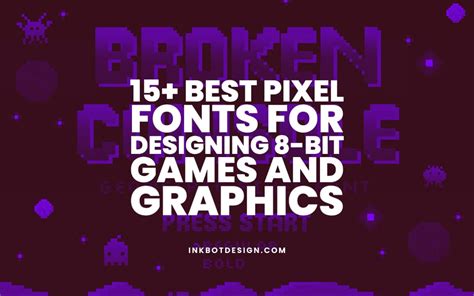
Google Font Pixel
Google Font Pixel - Making the web more beautiful, fast, and open through great typography There is another earlier variation called vt321 that uses a more standard 1:1 pixel drawing technique, if you want to grab that as well. Dotgothic 16 is based on the old 16x16 gothic bitmap font that recreates the feel of pixel fonts from old video games, cell phones and. Pixelify sans fonts are a unique style of typography that originated in the 1980s with the rise of computer graphics and video games. Silkscreen is a pixel typeface that was designed for rendering type at small sizes for web graphics.
Dotgothic 16 is based on the old 16x16 gothic bitmap font that recreates the feel of pixel fonts from old video games, cell phones and. Making the web more beautiful, fast, and open through great typography Pixelify sans fonts are a unique style of typography that originated in the 1980s with the rise of computer graphics and video games. Silkscreen is a pixel typeface that was designed for rendering type at small sizes for web graphics. There is another earlier variation called vt321 that uses a more standard 1:1 pixel drawing technique, if you want to grab that as well.
Silkscreen is a pixel typeface that was designed for rendering type at small sizes for web graphics. There is another earlier variation called vt321 that uses a more standard 1:1 pixel drawing technique, if you want to grab that as well. Dotgothic 16 is based on the old 16x16 gothic bitmap font that recreates the feel of pixel fonts from old video games, cell phones and. Pixelify sans fonts are a unique style of typography that originated in the 1980s with the rise of computer graphics and video games. Making the web more beautiful, fast, and open through great typography
Making the web more beautiful, fast, and open through great typography Pixelify sans fonts are a unique style of typography that originated in the 1980s with the rise of computer graphics and video games. Silkscreen is a pixel typeface that was designed for rendering type at small sizes for web graphics. Dotgothic 16 is based on the old 16x16 gothic.
There is another earlier variation called vt321 that uses a more standard 1:1 pixel drawing technique, if you want to grab that as well. Making the web more beautiful, fast, and open through great typography Dotgothic 16 is based on the old 16x16 gothic bitmap font that recreates the feel of pixel fonts from old video games, cell phones and..
Pixelify sans fonts are a unique style of typography that originated in the 1980s with the rise of computer graphics and video games. There is another earlier variation called vt321 that uses a more standard 1:1 pixel drawing technique, if you want to grab that as well. Dotgothic 16 is based on the old 16x16 gothic bitmap font that recreates.
Making the web more beautiful, fast, and open through great typography There is another earlier variation called vt321 that uses a more standard 1:1 pixel drawing technique, if you want to grab that as well. Silkscreen is a pixel typeface that was designed for rendering type at small sizes for web graphics. Pixelify sans fonts are a unique style of.
Pixelify sans fonts are a unique style of typography that originated in the 1980s with the rise of computer graphics and video games. Silkscreen is a pixel typeface that was designed for rendering type at small sizes for web graphics. Dotgothic 16 is based on the old 16x16 gothic bitmap font that recreates the feel of pixel fonts from old.
Dotgothic 16 is based on the old 16x16 gothic bitmap font that recreates the feel of pixel fonts from old video games, cell phones and. Silkscreen is a pixel typeface that was designed for rendering type at small sizes for web graphics. Pixelify sans fonts are a unique style of typography that originated in the 1980s with the rise of.
Pixelify sans fonts are a unique style of typography that originated in the 1980s with the rise of computer graphics and video games. There is another earlier variation called vt321 that uses a more standard 1:1 pixel drawing technique, if you want to grab that as well. Making the web more beautiful, fast, and open through great typography Silkscreen is.
Pixelify sans fonts are a unique style of typography that originated in the 1980s with the rise of computer graphics and video games. Dotgothic 16 is based on the old 16x16 gothic bitmap font that recreates the feel of pixel fonts from old video games, cell phones and. There is another earlier variation called vt321 that uses a more standard.
Making the web more beautiful, fast, and open through great typography Silkscreen is a pixel typeface that was designed for rendering type at small sizes for web graphics. Pixelify sans fonts are a unique style of typography that originated in the 1980s with the rise of computer graphics and video games. Dotgothic 16 is based on the old 16x16 gothic.
There Is Another Earlier Variation Called Vt321 That Uses A More Standard 1:1 Pixel Drawing Technique, If You Want To Grab That As Well.
Pixelify sans fonts are a unique style of typography that originated in the 1980s with the rise of computer graphics and video games. Dotgothic 16 is based on the old 16x16 gothic bitmap font that recreates the feel of pixel fonts from old video games, cell phones and. Making the web more beautiful, fast, and open through great typography Silkscreen is a pixel typeface that was designed for rendering type at small sizes for web graphics.